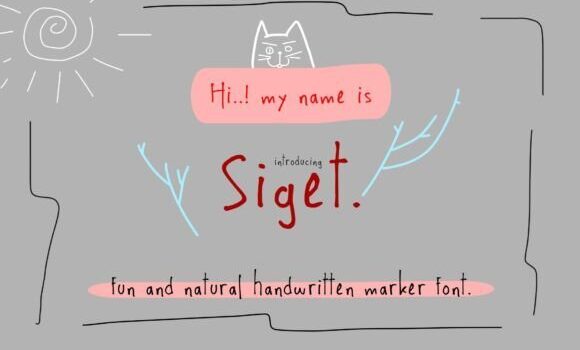
siget
Siget Font – Free Download Introduction to Siget Font Introducing a handwritten masterpiece made exclusively with marker strokes, behold the enticing charm of a crafted, natural and manually written font. 📸 Preview Gallery 5 images 📌 Product Name Siget Font